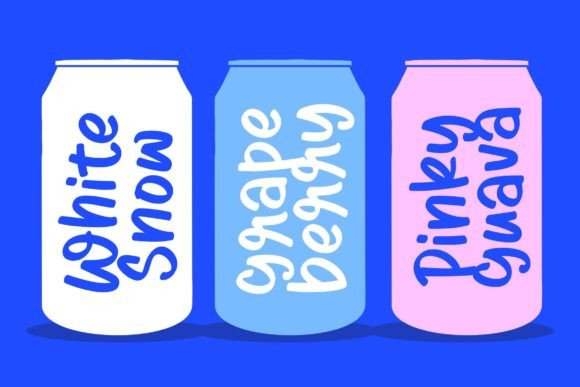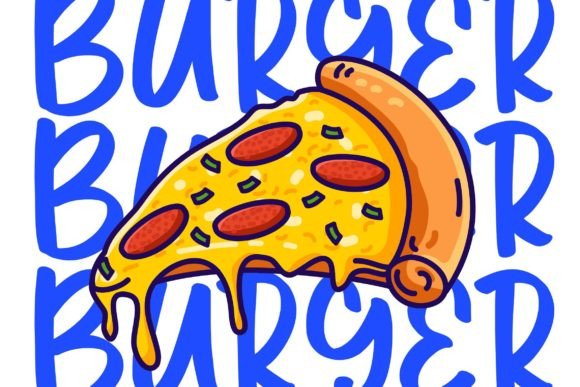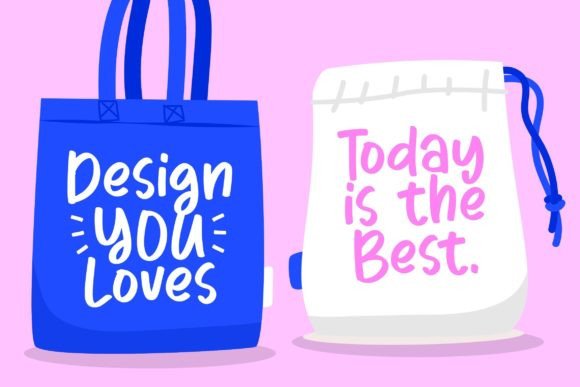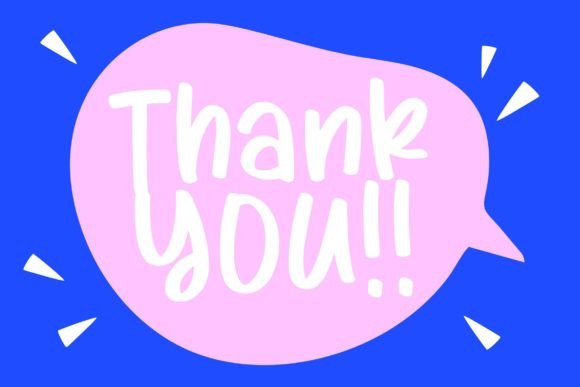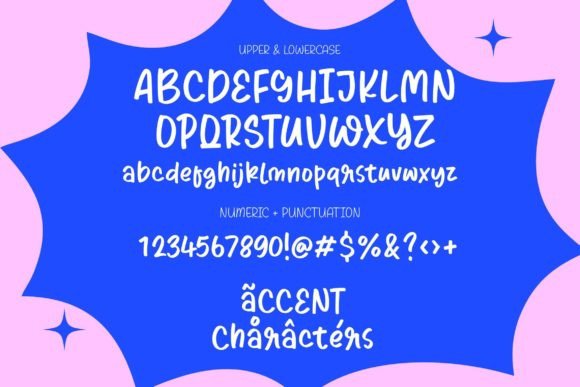
The Bluesoda Font: A Modern Handwritten Style for Creative Projects
I still remember the frustration of working on a design project, hours spent searching for the perfect font, only to come up empty-handed. My client wanted a logo that exuded a personal touch, something that would make their brand stand out. That’s when I stumbled upon the Bluesoda Font. Crafted with care and attention to detail, this font has been a game-changer for my design workflow. In this article, I’ll share my experience with Bluesoda, its features, and how to make the most of it in various design platforms.
- ✨ Versatility: Bluesoda’s modern, handwritten style makes it incredibly versatile for a range of design projects, including logos, branding, invitations, and more.
- ✅ Unique Character: Its distinctive character set ensures that your designs will have a unique flair that sets them apart.
- 💡 Ease of Use: The font is easy to read and works well in various sizes, making it perfect for both digital and print applications.
While Bluesoda has won me over, there are a few minor considerations:
- ⚠️ Limited Formality: Given its handwritten nature, Bluesoda might not be the best fit for projects requiring a high level of formality.
- 🤔 Glyph Variety: While the font comes with a range of glyphs and stylistic alternates, some users might find the selection a bit limited for very specific design needs.
The story behind Bluesoda begins with a designer who wanted to capture the essence of modern handwriting. Inspired by the fluidity of handwritten scripts and the uniqueness of individual lettering, the creator of Bluesoda aimed to produce a font that feels both contemporary and personal. This font is a reflection of the designer’s passion for typography and their desire to provide a versatile tool for creatives.
A: While Bluesoda is primarily designed for display purposes, its readability makes it suitable for short paragraphs of body text. However, for extensive reading materials, a more traditional font might be more appropriate.
A: Bluesoda supports a range of languages, but its coverage might be limited compared to more extensive font libraries. Check the font’s character set to ensure it meets your language requirements.
A: Bluesoda stands out for its modern, clean lines and versatile design. While other handwritten fonts may have a more rustic or vintage feel, Bluesoda offers a fresh, contemporary look that’s perfect for brands looking to convey a sense of approachability and personality.